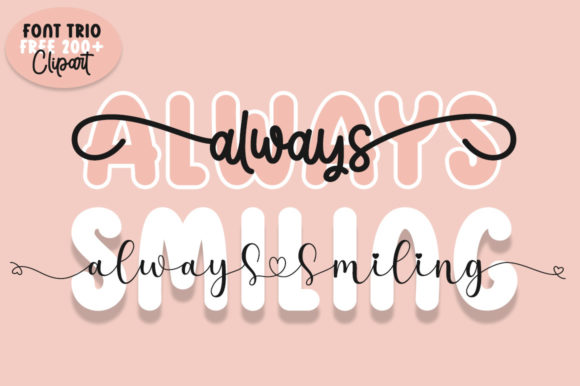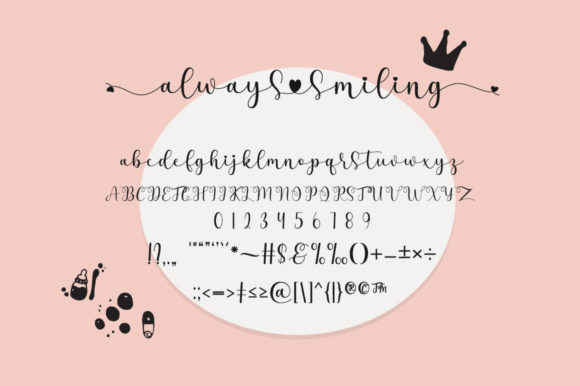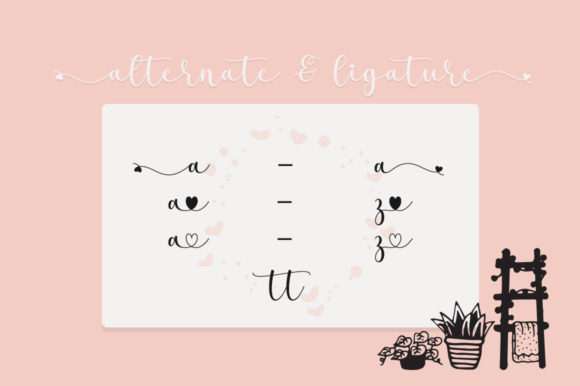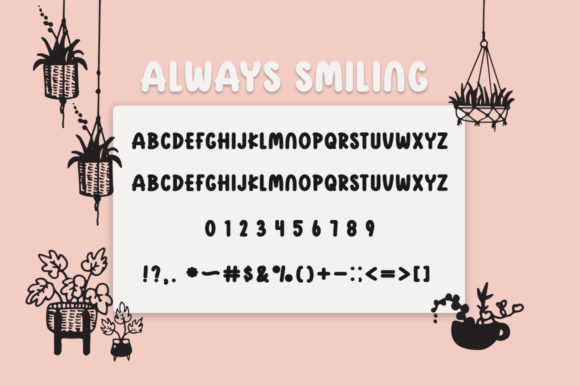
About Always Smiling Font
Always Smiling consists of trio fonts designed to complement each other perfectly. Together or apart, these fonts are ideal for adding a chic and cheery touch to your crafts. This font is PUA encoded which means you can access all glyphs and swashes with ease!